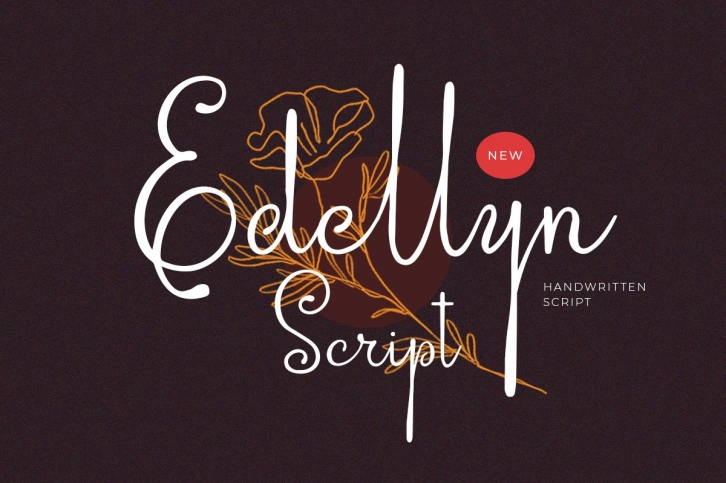
Edellyn Script is a beautiful font that was designed by Letterhend. It's a great choice for designers and creatives who need such a font. It was released on August 9, 2021 and the file size is 17.17 MB. Edellyn Script may give a more youthful, expressive and casual look to your project. It is a very beautiful, refined, elegant, and high-quality font.